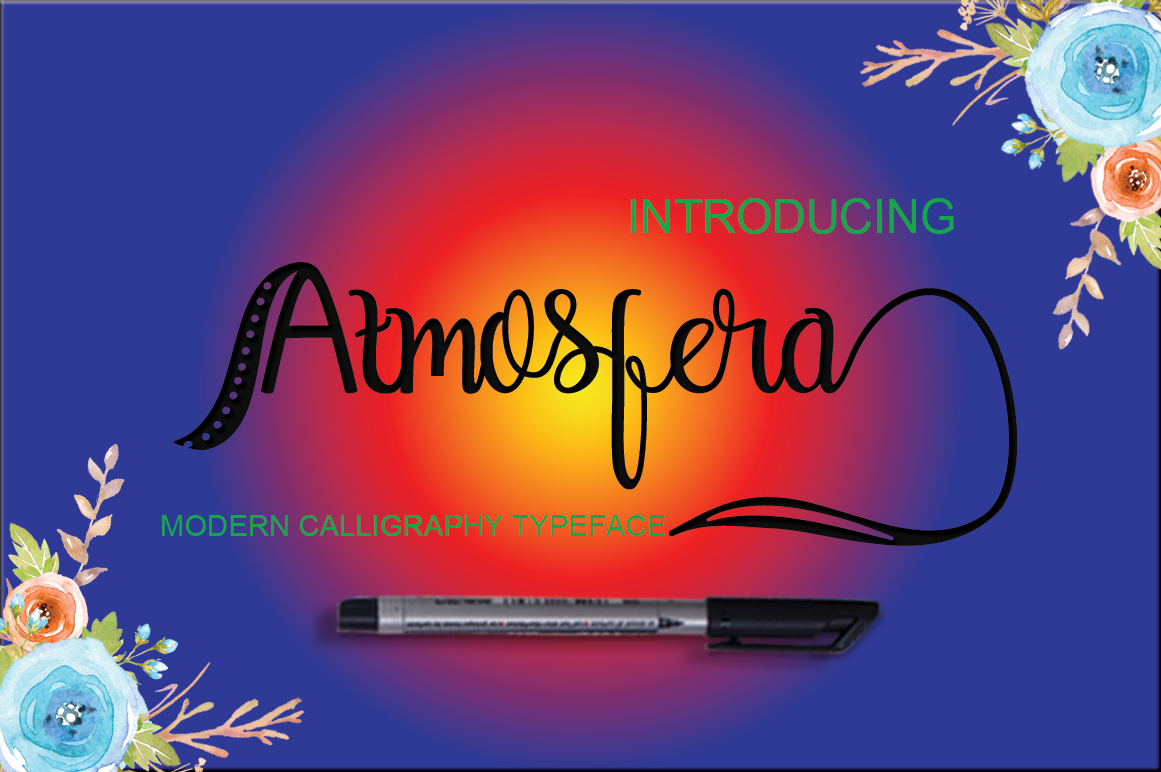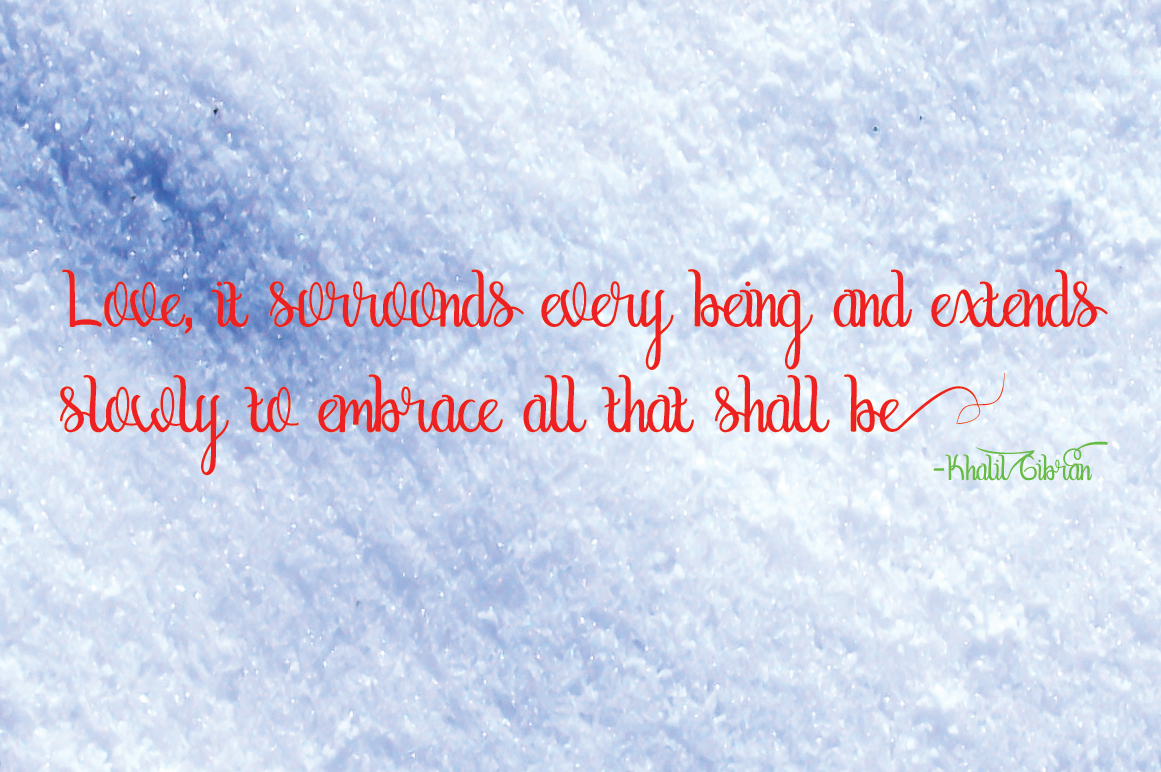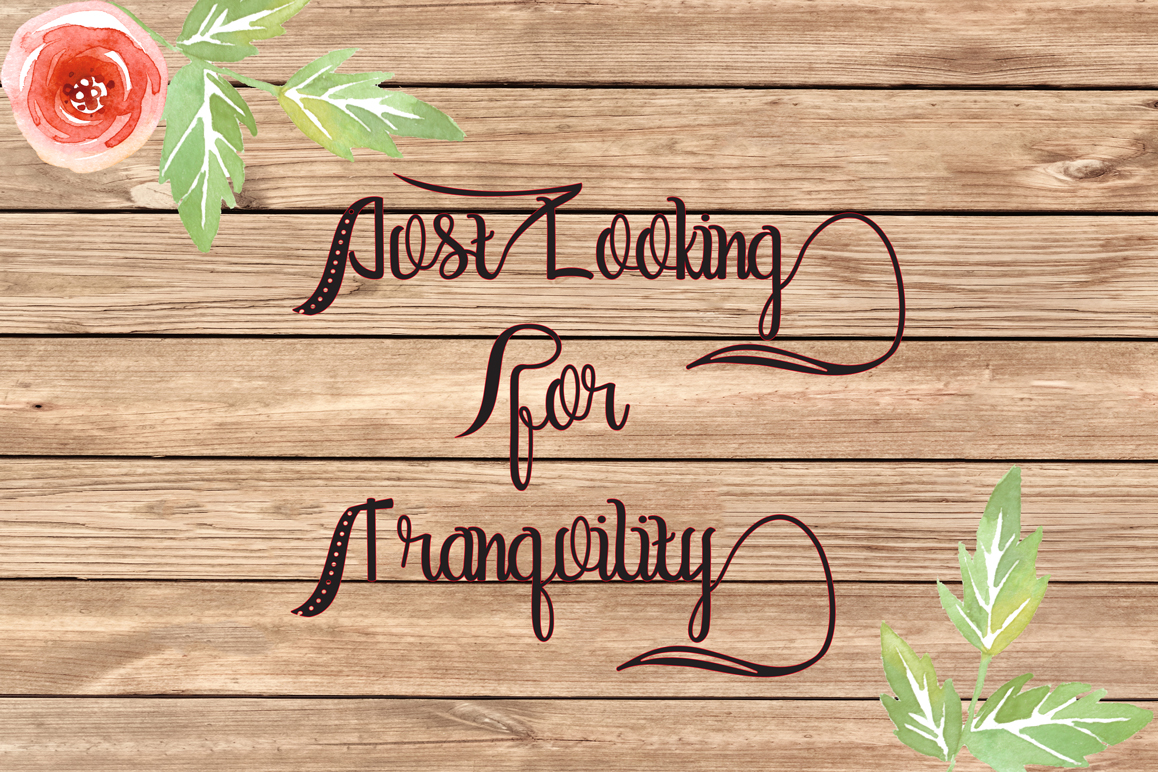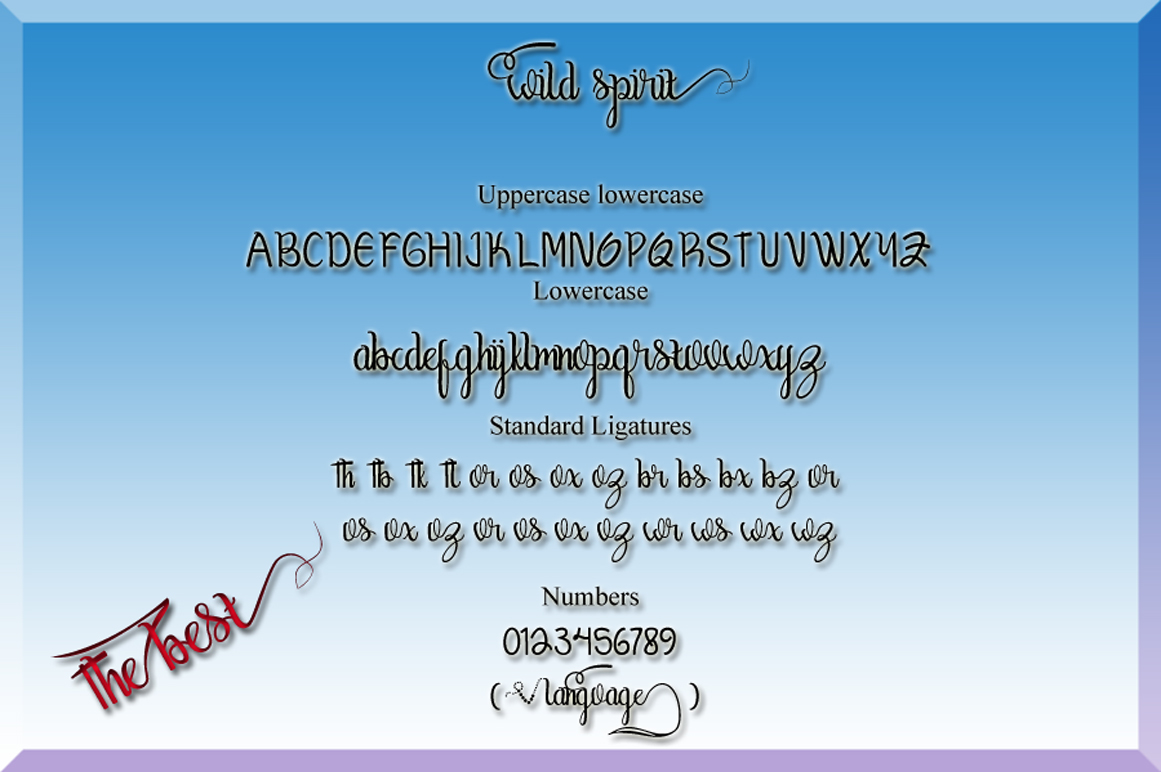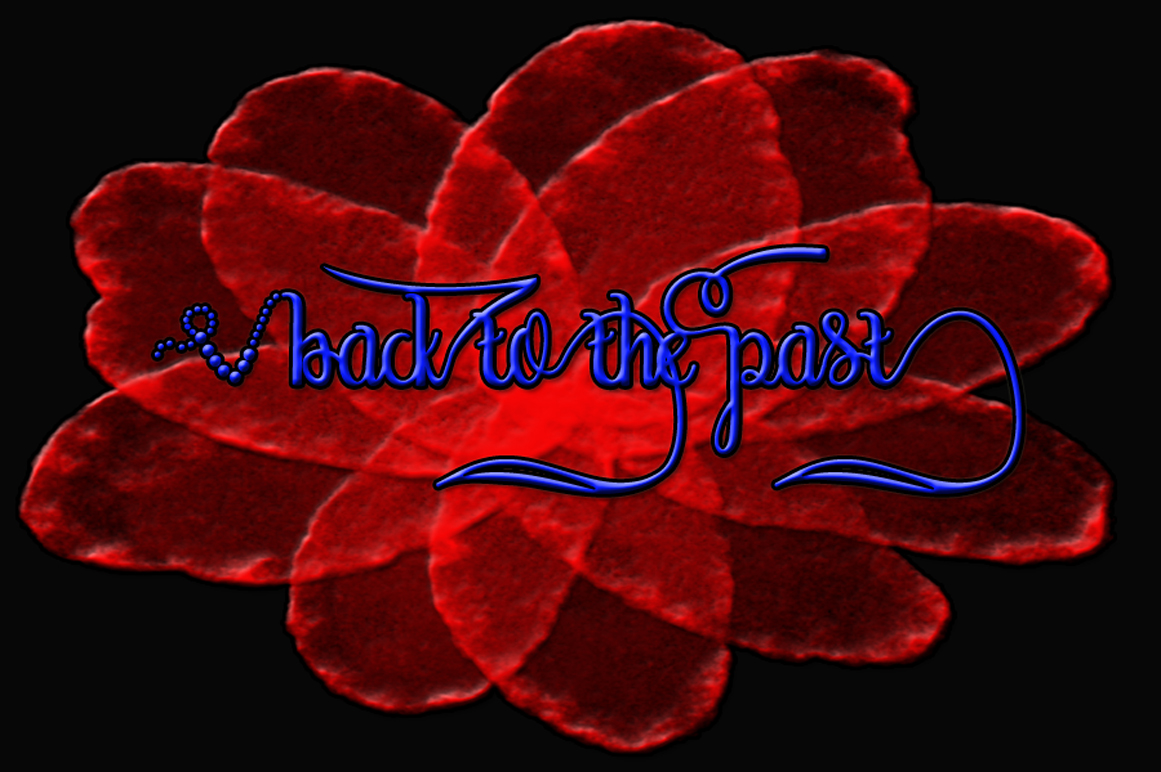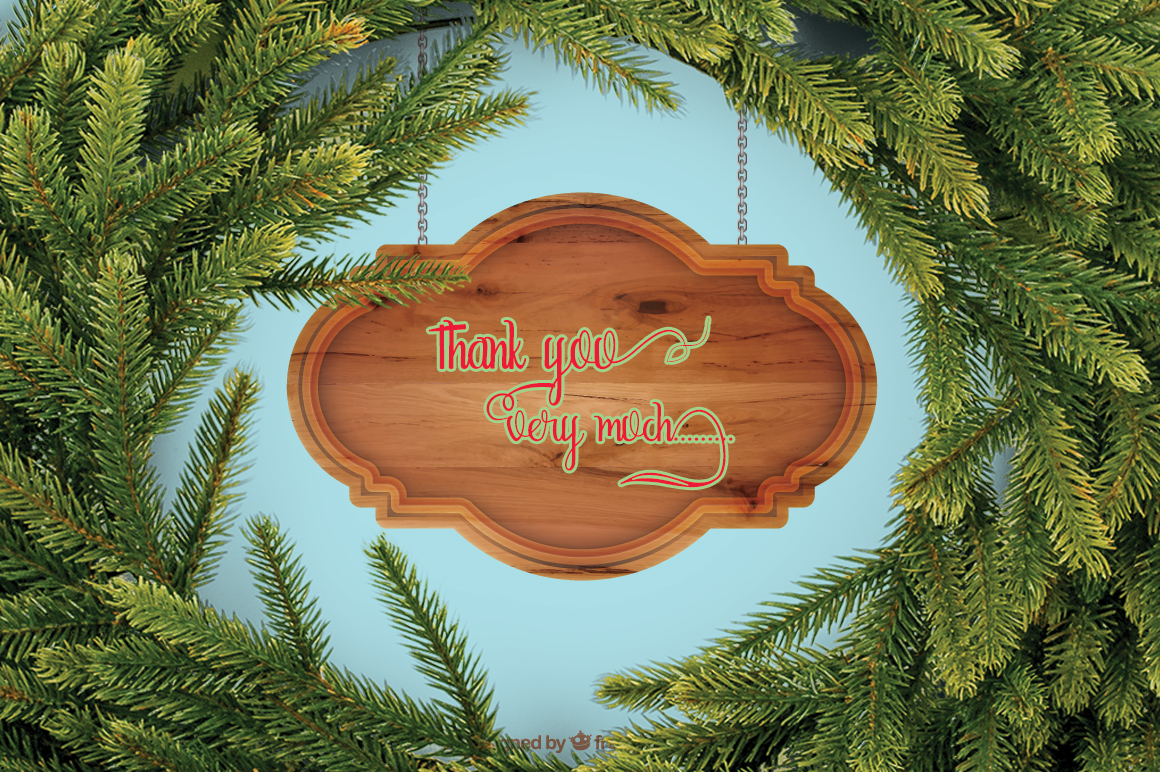
HomeScript FontsAtmosfera Font Script Fonts Atmosfera Font FacebookXPinterestWhatsApp Atmosfera Font Poster 2 Atmosfera Font Poster 3 Atmosfera Font Poster 4 Atmosfera Font Poster 5 Atmosfera Font Poster 6 About Atmosfera Font Atmosfera is a handwritten font created with a fine brush. DOWNLOAD ON CREATIVE FABRICAThis font is sold and delivered by Creative Fabrica. Font Canyon may earn a commission if you buy through this link. People also explored Filmotype Quiet Rhapson Script Font Bristya Signature Font Male Cardinal Bella Canvas 3001 Mockup Brigeslow Font Bravani Font Stella Angelica Font Love Not War Font Hello Ayunda Font 534 0 TagsAtmosfera Font Previous articleMissgivelove FontNext articleButtersky Font LEAVE A REPLY Cancel reply Comment: Please enter your comment! Name:* Please enter your name here Email:* You have entered an incorrect email address! Please enter your email address here Website: Save my name, email, and website in this browser for the next time I comment. Personal Use Free England Personal Use Free Read more about this font Sea Gardens Personal Use Free Read more about this font Setta Personal Use Free Read more about this font Crack Man Personal Use Free Read more about this font BLOG Using Fonts in Digital Marketing: Tips to Strengthen Your Brand Identity In the realm of digital marketing, every visual element plays a crucial role in shaping a brand's identity, and fonts are no exception. The... Transform Your Website: Elevate Your Typography with 7 Best Web Font Generators How to Cut Any Font on Cricut: Convert a Font to SVG (Free) Top 10 Handwritten Fonts That Elevate Your Designs